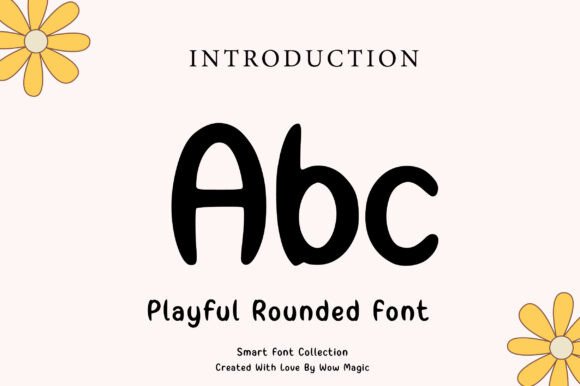
Introducing Hard Spine Hybrid Font: The Ultimate Display Font for Playful and Impactful Designs
Are you looking for a font that can add a touch of playfulness and personality to your designs? Look no further than the Hard Spine Hybrid font. This chunky, playful display font is perfect for eye-catching titles, fun branding, and creative projects that require a modern cartoon-style vibe.
What Makes Hard Spine Hybrid Font Stand Out?
The Hard Spine Hybrid font boasts a bold handwritten feel with a strong “spine” structure that keeps every letter clear and impactful. Its rounded corners, thick strokes, and friendly bounce create a unique and captivating visual identity that sets it apart from other fonts. The hybrid look blends casual hand-drawn energy with solid readability, making it great for both digital and print projects.
Key Features of Hard Spine Hybrid Font
- Chunky and Playful: The font’s chunky and playful design makes it perfect for eye-catching titles and fun branding.
- Bold Handwritten Feel: The font’s bold handwritten feel gives it a unique and personal touch.
- Strong “Spine” Structure: The font’s strong “spine” structure keeps every letter clear and impactful.
- Rounded Corners: The font’s rounded corners add a touch of friendliness and approachability.
- Thick Strokes: The font’s thick strokes make it perfect for bold and eye-catching designs.
- Hybrid Look: The font’s hybrid look blends casual hand-drawn energy with solid readability.
Versatility of Hard Spine Hybrid Font
The Hard Spine Hybrid font is incredibly adaptable and can be used in a variety of design projects, from digital to print. It holds up beautifully in small body text while maintaining its punchy character as a headline. This makes it perfect for:
- Mobile App Interfaces: The font’s clear and readable design makes it perfect for mobile app interfaces.
- Casual Dining Menus: The font’s playful and friendly design makes it perfect for casual dining menus.
- Kids Designs: The font’s playful and colorful design makes it perfect for kids’ designs, such as children’s books, toys, and games.
- Posters: The font’s bold and eye-catching design makes it perfect for posters and flyers.
Pairing Hard Spine Hybrid Font with Colors and Designs
The Hard Spine Hybrid font can be paired with a variety of colors and designs to create a unique and captivating visual identity. For a playful and rounded font identity, pair it with vibrant, saturated colors. For a clean and corporate look, pair it with a simple and neutral design.
Why Choose Hard Spine Hybrid Font?
The Hard Spine Hybrid font is the ultimate “workhorse” typeface for designers who want it all—clarity, character, and charm. Its unique and captivating design makes it perfect for designers and crafters who want to add a touch of personality to their designs.
In conclusion, the Hard Spine Hybrid font is a versatile and playful display font that is perfect for a variety of design projects. Its unique and captivating design makes it perfect for designers and crafters who want to add a touch of personality to their designs. With its strong “spine” structure, rounded corners, and thick strokes, the Hard Spine Hybrid font is sure to make a statement in any design project.